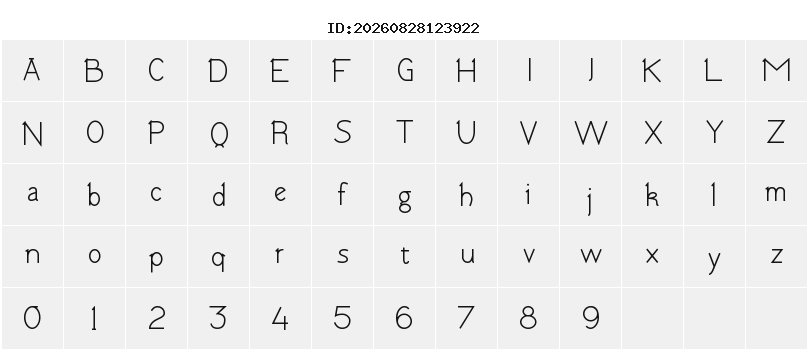
Tomsk Preview
• Font Name: Tomsk
• Designer: Type Sailor - David Espinosa
About Tomsk.ttf
Tomsk.ttf is a modern, elegant sans-serif font designed for ultimate readability and visual harmony. Perfect for branding, headlines, web design, and print materials.